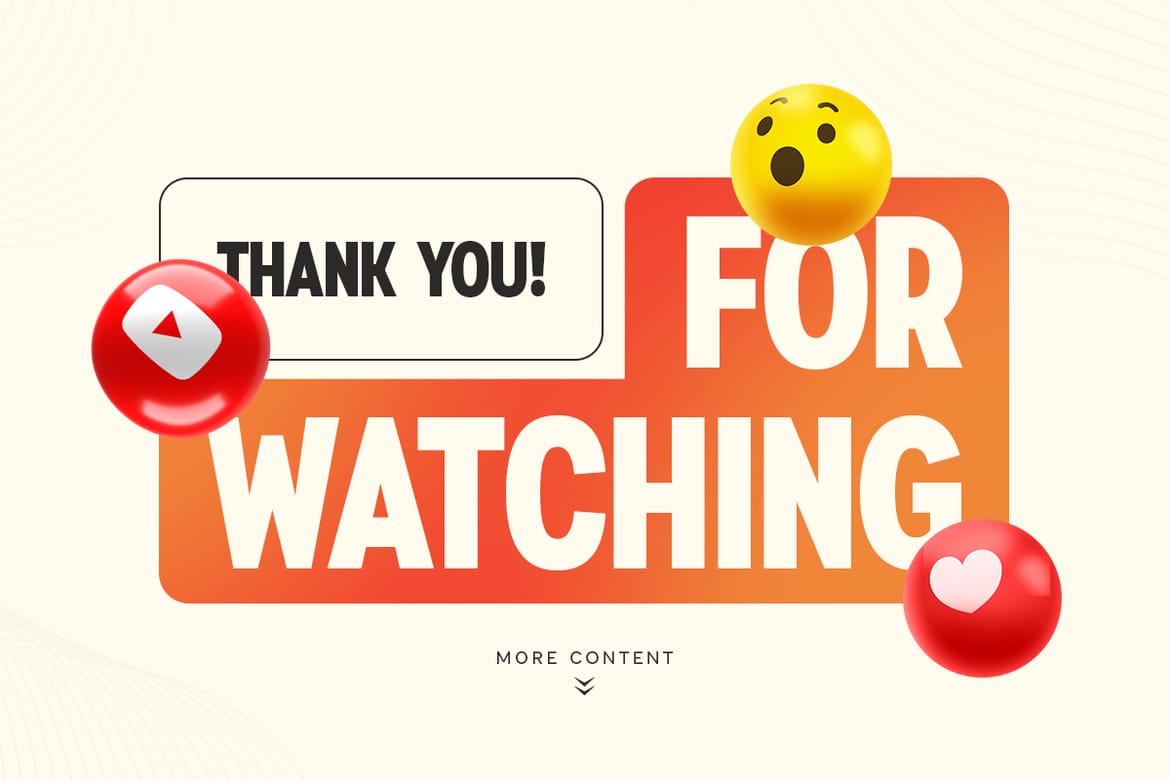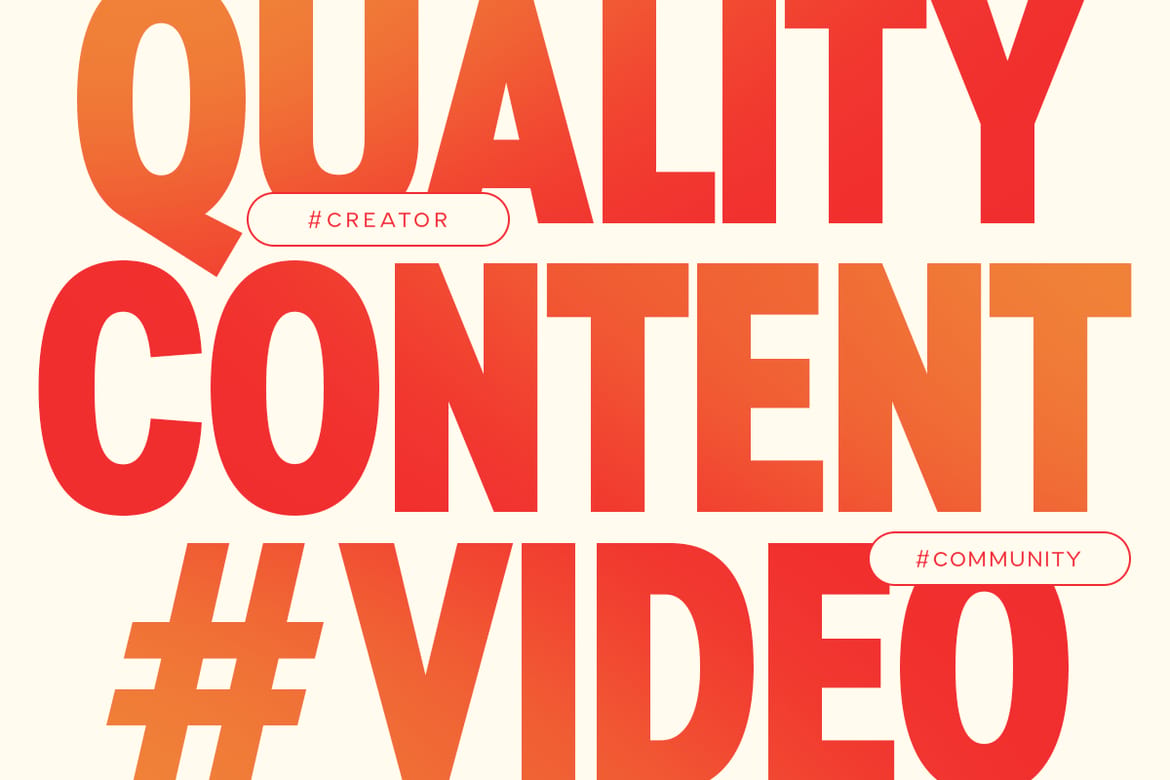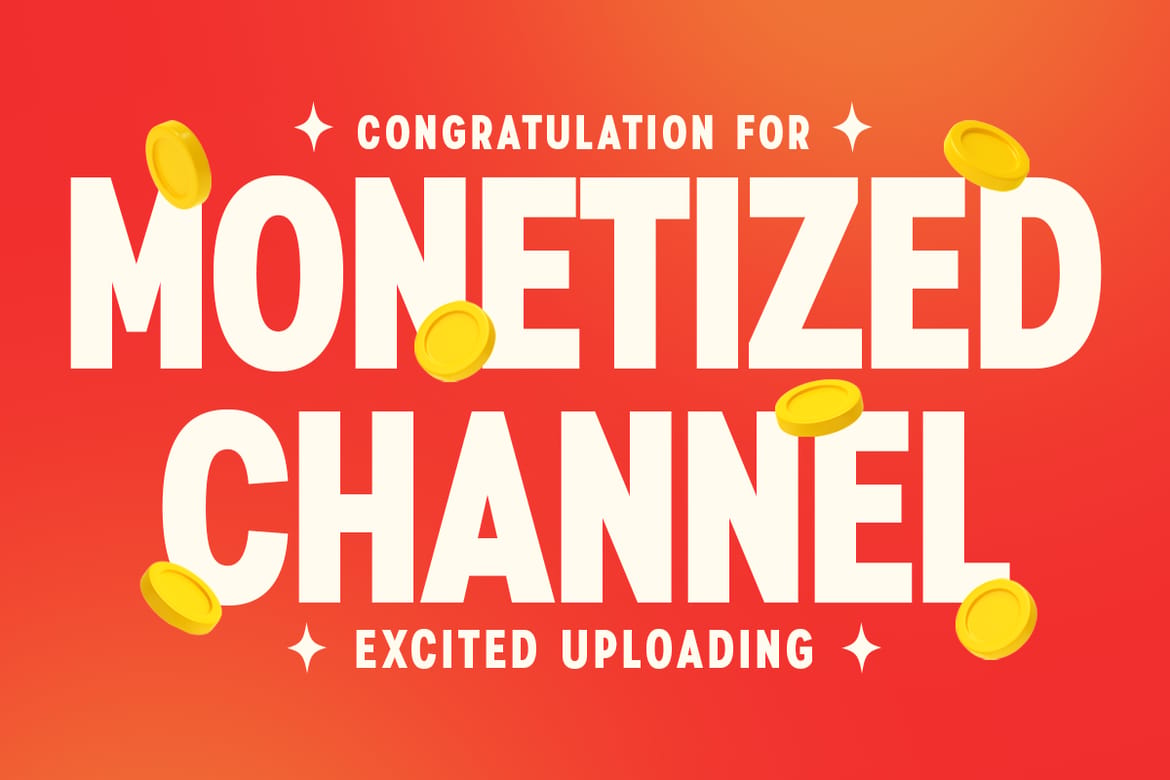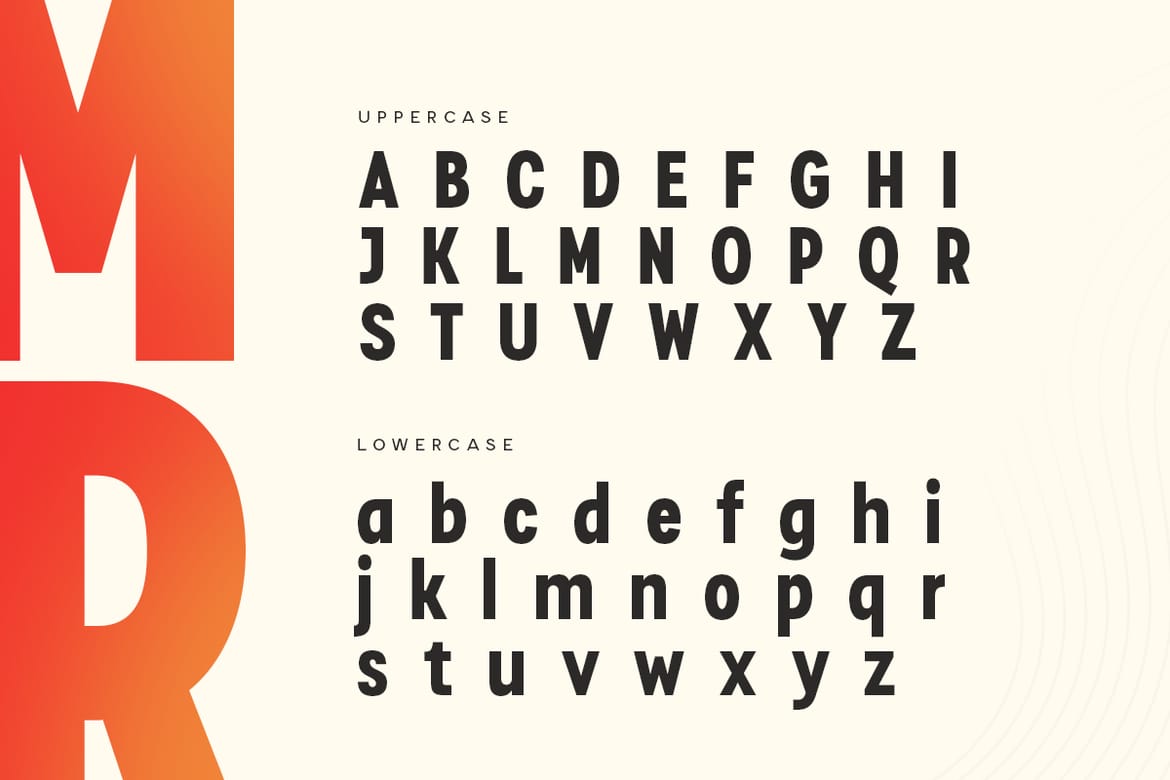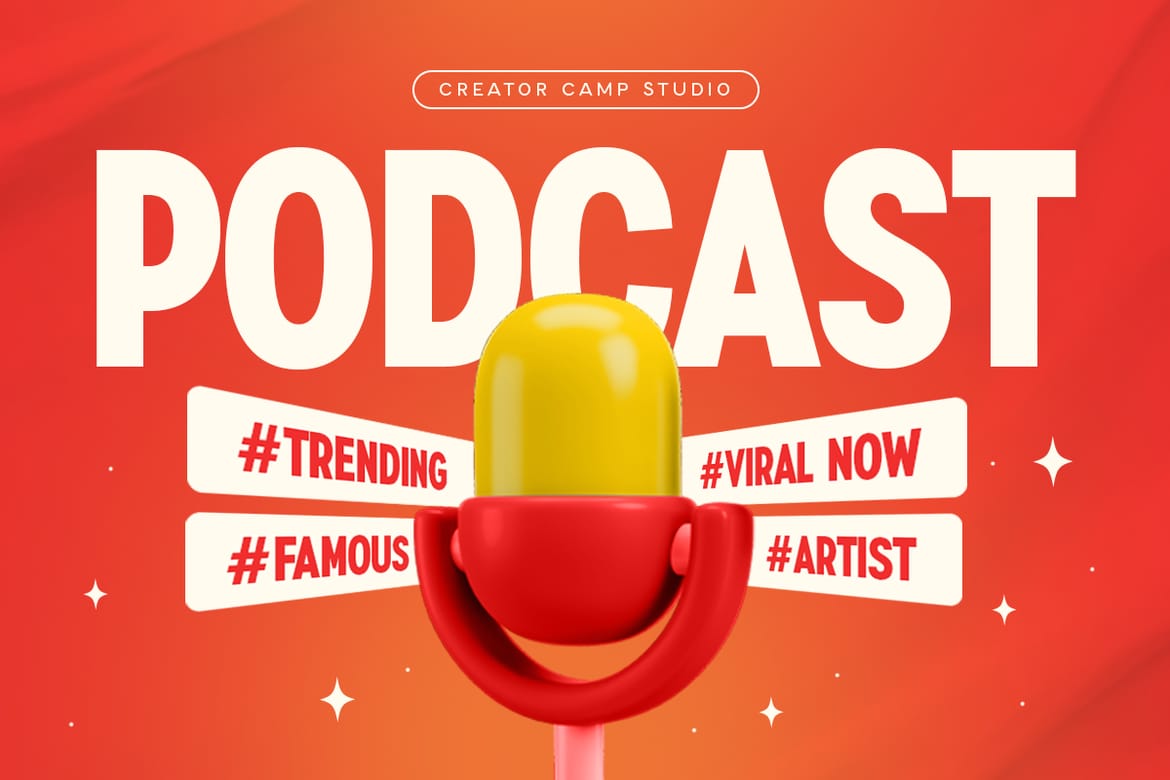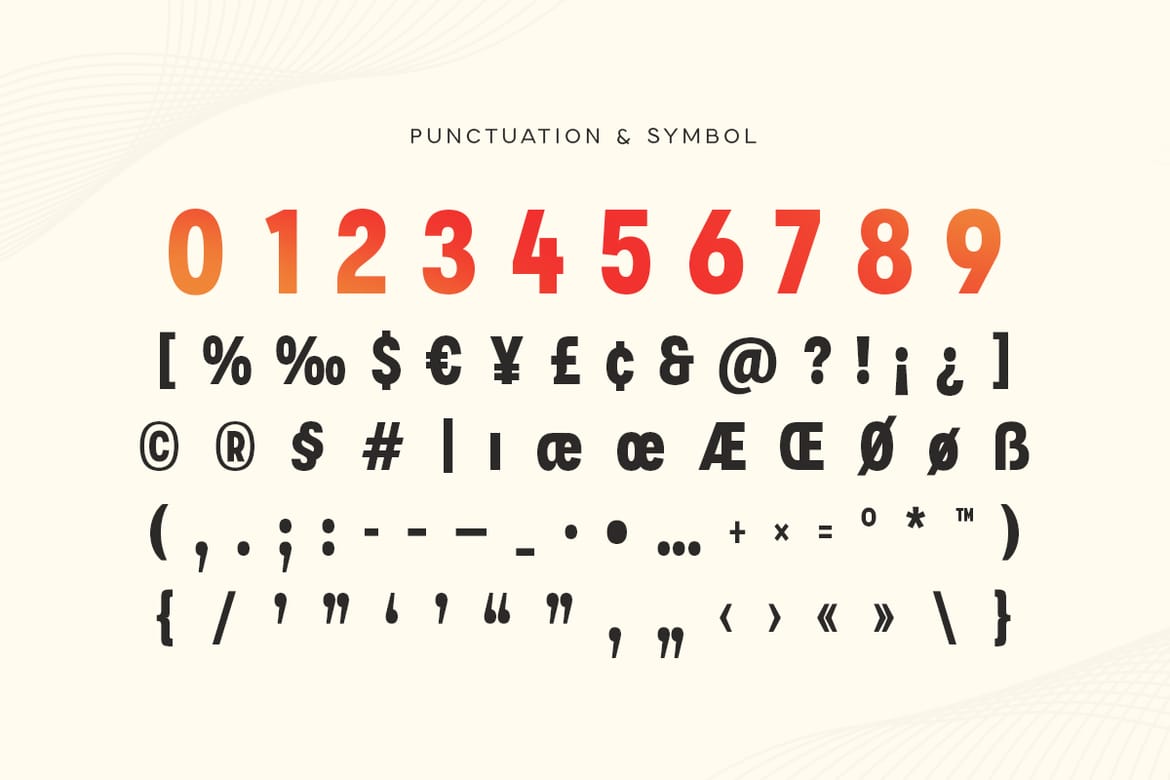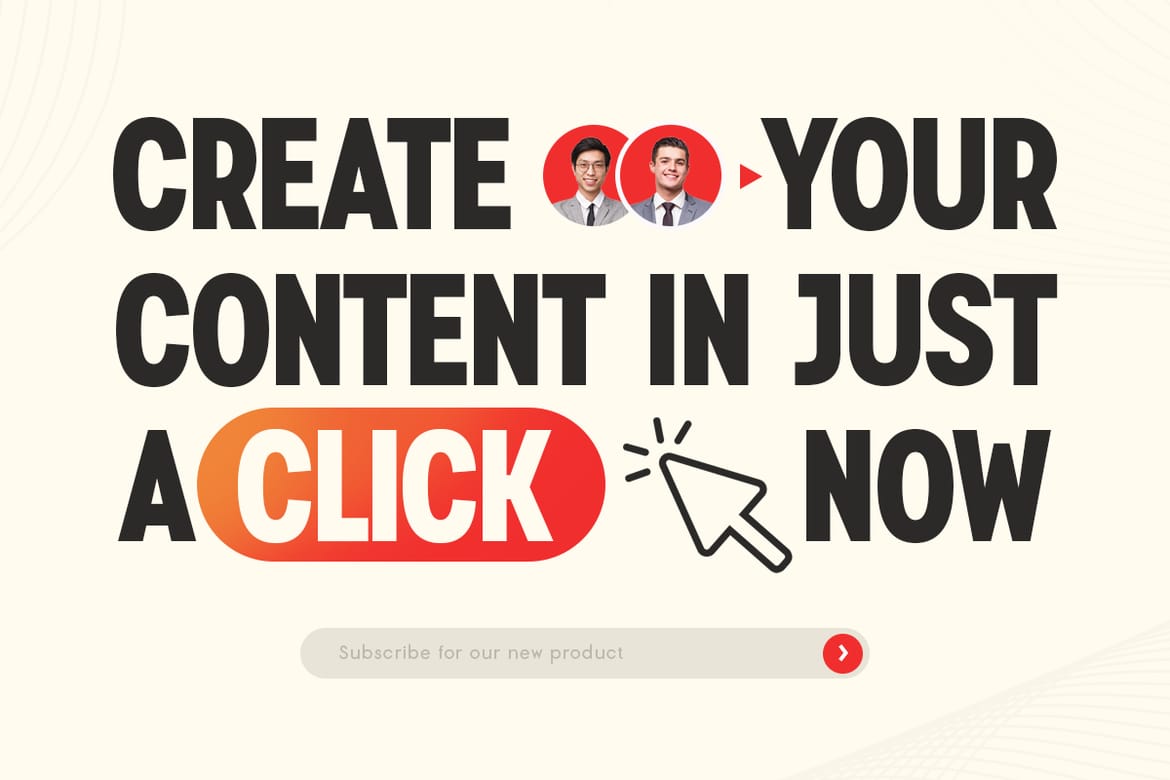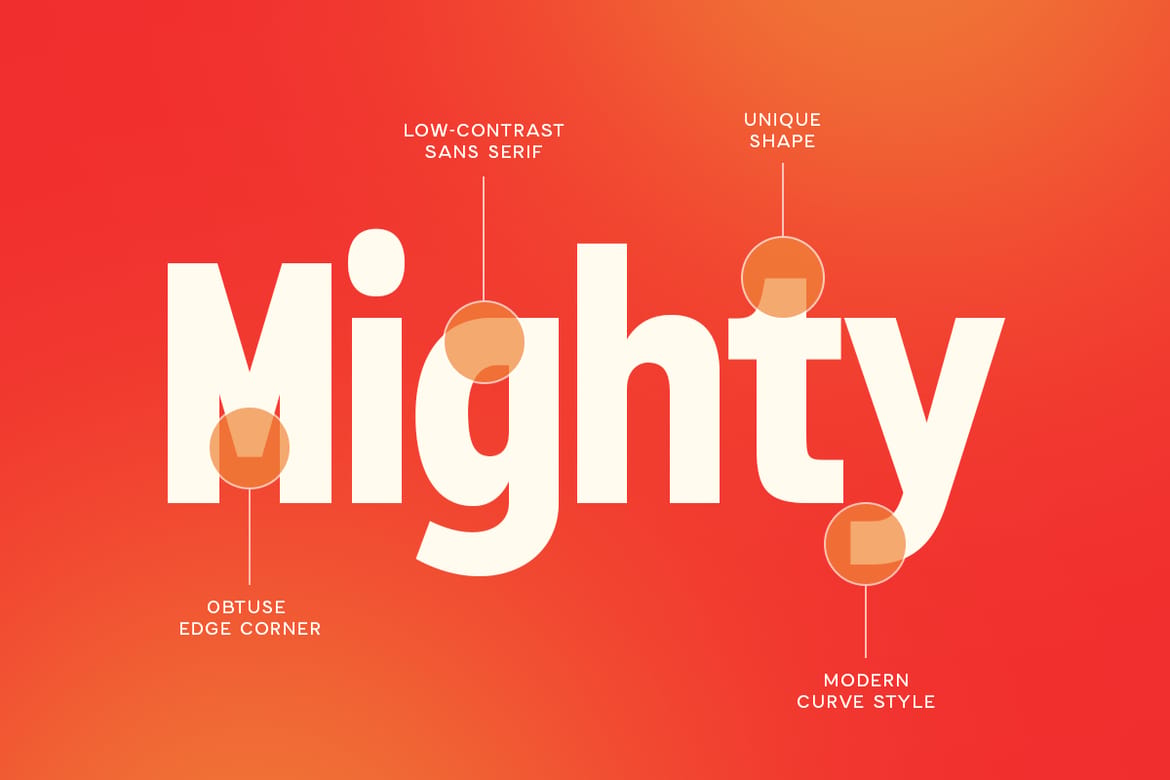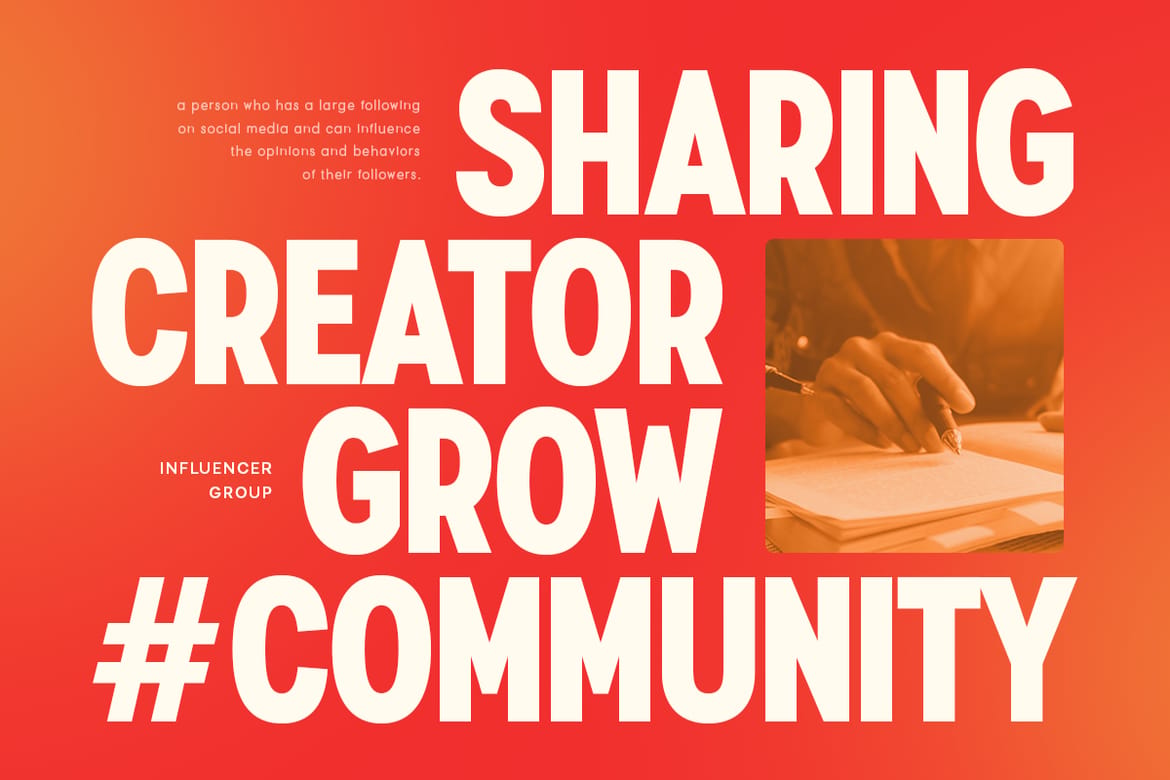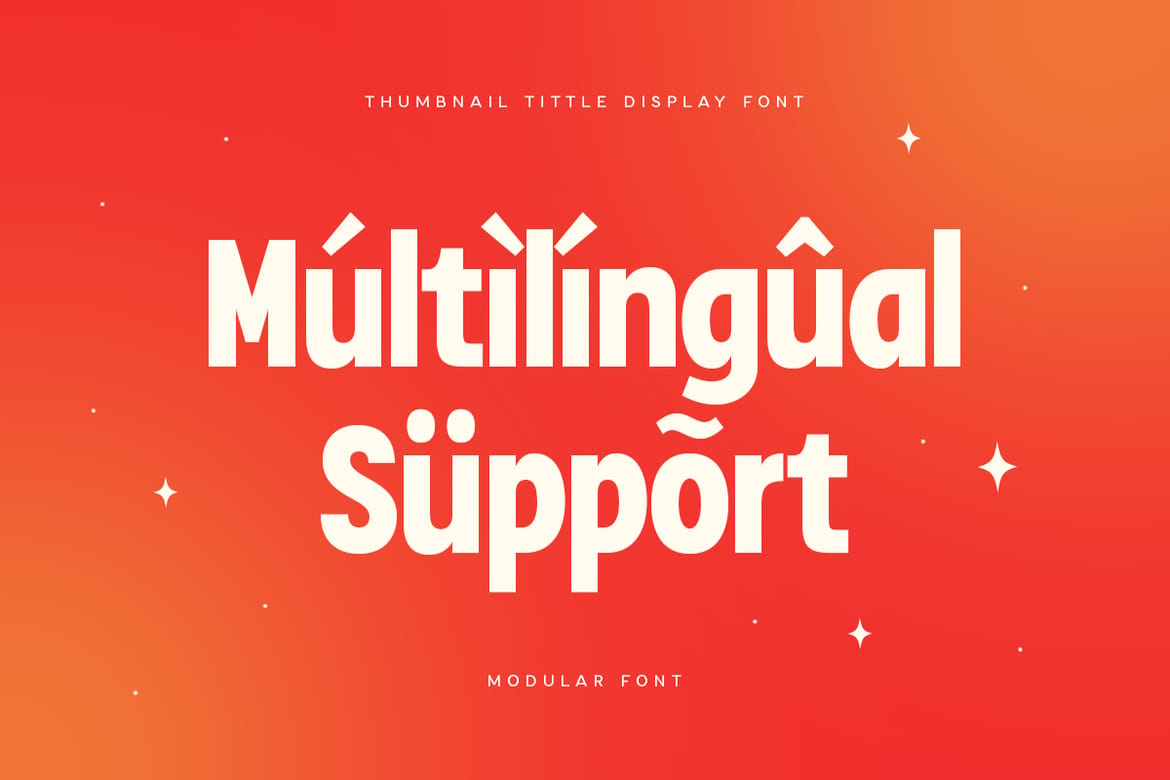
Thumbnail is a Title Headline Display Font is a well-balanced modern font with a minimalist, unique, and iconic sans serif, font that you can combine to get any variations and unique shapes easily just in seconds with choose characters of them. It is a sans serif font with minimalist style that perfect for Social Media Headline, Thumbnail title, branding projects, logo, poster designs, social media posts, advertisements, product packaging, product designs, label, photography, watermark, invitation, stationery, and any projects, it makes with a high level of legibility.
Unique Characters
- Minimalist display headline font
- Perfect for social media thumbnails